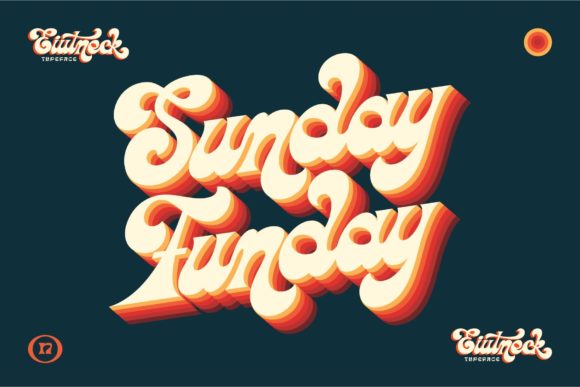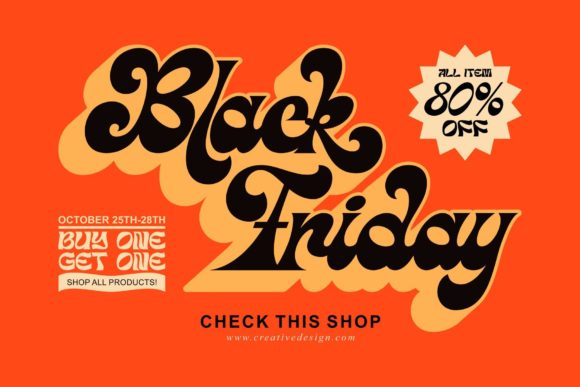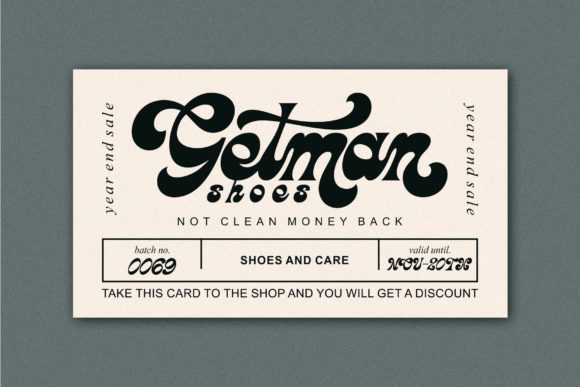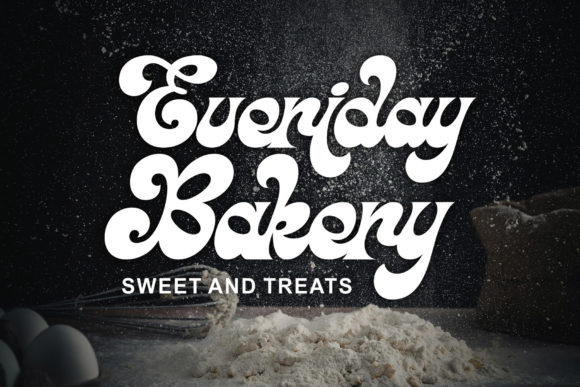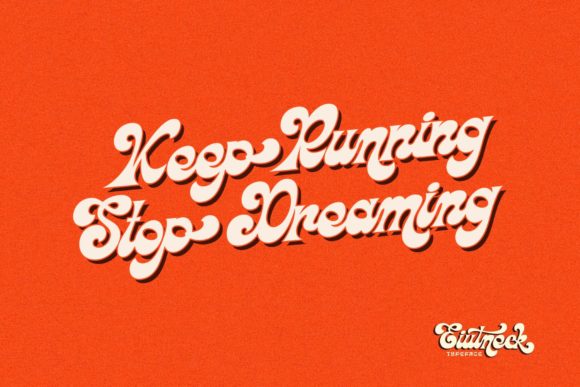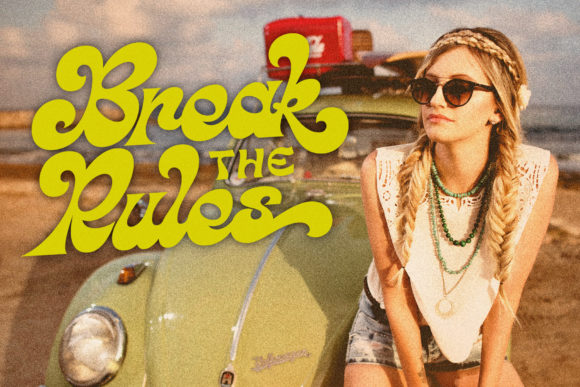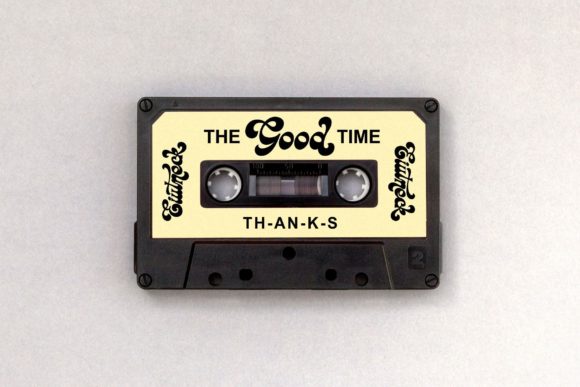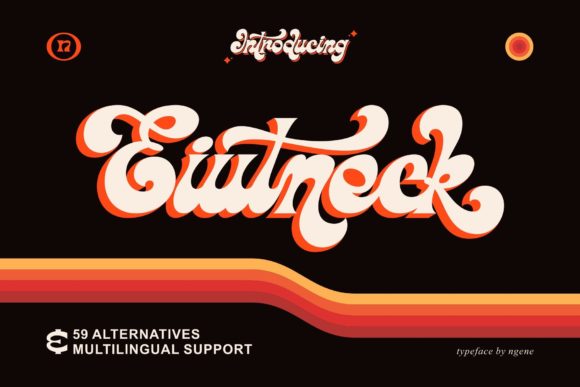
Eiutneck Script Font
About Eiutneck Script Font
Introducing “Eiutneck Script,” a gorgeous retro-looking handwritten font that adds a stylish touch to your headlines and logotype projects. With its strong, confident, and dynamic appearance, this font brings nostalgic character to your designs, giving them a unique and eye-catching appeal.
Eiutneck Script is crafted with precision to capture the essence of retro typography. Its carefully designed letterforms exude a sense of vintage charm, evoking memories of a bygone era. The hand-drawn quality of the font adds a personal and authentic touch, creating a distinct and memorable visual experience.
The bold and confident nature of Eiutneck Script makes it ideal for headlines, logotypes, and other prominent design elements. It commands attention and leaves a lasting impression. Whether you’re designing a retro-inspired poster, a vintage logo, or a nostalgic branding project, Eiutneck Script will elevate your designs and infuse them with a sense of classic elegance.
The font’s retro aesthetic makes it versatile and adaptable to various design themes and styles. It pairs well with complementary typefaces, such as sans-serif fonts or other retro-inspired fonts, allowing you to create harmonious and visually appealing combinations.
Eiutneck Script is crafted with readability in mind, ensuring that your headlines and logotypes are both stylish and easy to understand. Its legible letterforms and carefully balanced proportions make it suitable for a wide range of design projects, from digital to print.
In conclusion, Eiutneck Script is a gorgeous retro-looking handwritten font that adds a stylish and nostalgic touch to your headlines and logotype projects. Its strong and confident appearance, coupled with its hand-drawn charm, brings a sense of vintage character to your designs. Use Eiutneck Script to create memorable and impactful designs that evoke a sense of nostalgia and timeless style.